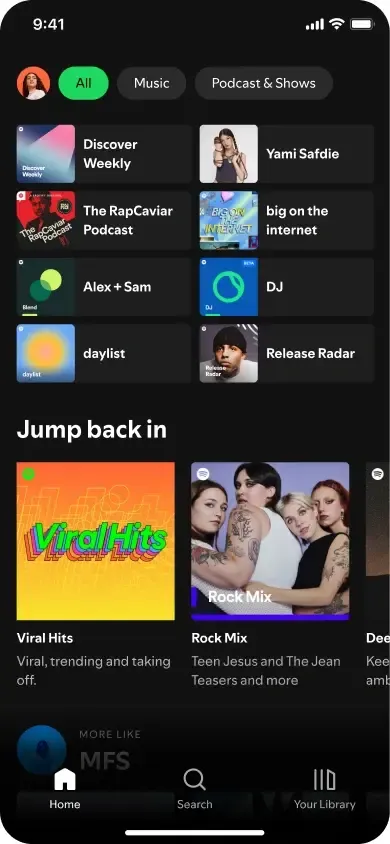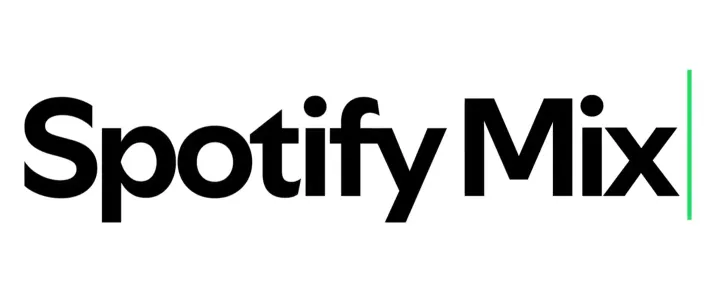
Spotify, the popular
music streaming platform, has announced the launch of its new custom font,
Spotify Mix. The font, designed specifically for the
Spotify brand, will be rolled out across the app and website over the next few weeks, enhancing the overall Spotify experience for users.
A Remix of Typography
Rasmus Wängelin,
Spotify's global head of brand design, described Spotify Mix as a "remix" of typography. The font, created in partnership with Berlin-based
Dinamo Typefaces, breaks free from traditional typographic limitations by merging elements of various font styles. This partnership also allowed Spotify to develop a custom font that aligns with its brand identity.
The result of the collaboration is a unique sans-serif font that combines classic and modern typographic elements to create a distinctive look that sets it apart from other fonts. The font's design also subtly incorporates the shape of sound waves, evoking a sense of rhythm and movement.
The combination of sharp angles and smooth curves gives
Spotify Mix a unique personality and a quintessential Spotify feel. The font's versatility also allows it to work in various applications, from playlists to community marketing campaigns.
Spotify Mix will be active throughout the Spotify ecosystem, including playlists and marketing campaigns. The font will make its debut at the Spotify Beach event during the Cannes Lions International Festival of Creativity, which begins on June 17.
The design approach behind
Spotify Mix reflects the dynamics and evolution of audio culture over the years. By breaking free from traditional typographic constraints and merging various font styles, the Spotify team has created a font that captures the essence of the ever-changing music industry.
Conclusion
Spotify's launch of the Spotify Mix font is a significant step in the company's ongoing efforts to create a cohesive and engaging brand identity. By developing a custom font that reflects the dynamics of audio culture and the Spotify brand, the company should deliver an even more immersive and memorable experience for its users.